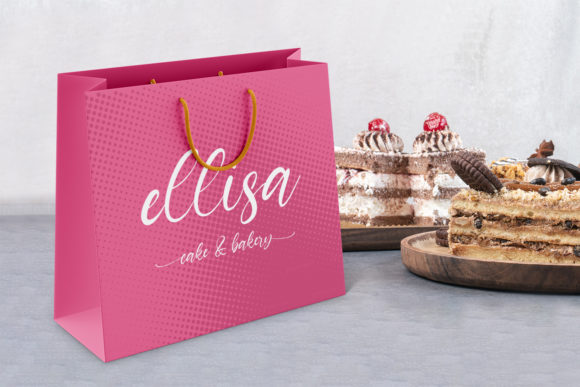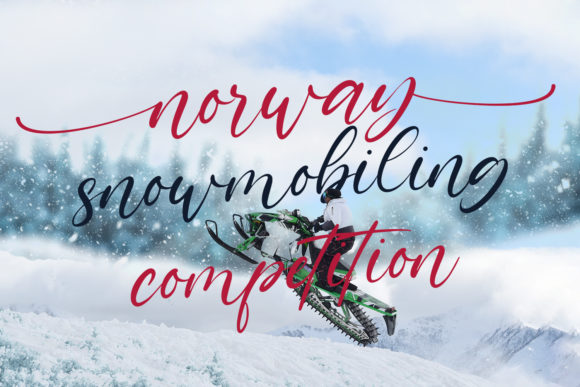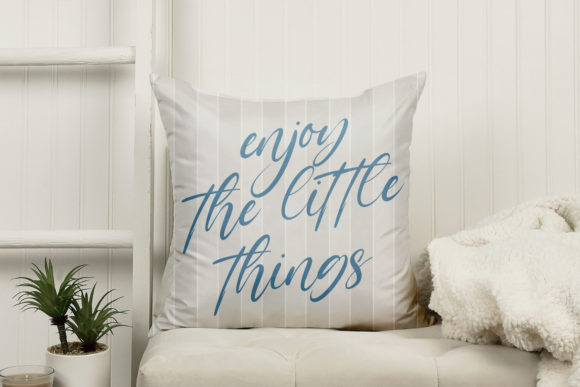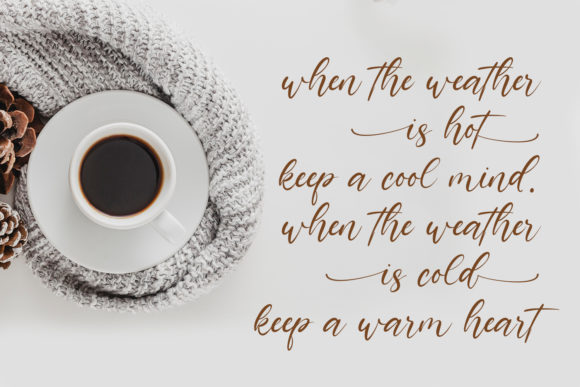
About Winterline Font
Winterline is an incredibly distinct, delicate and timeless handwritten font. It looks stunning on wedding invitations, thank you cards, quotes, greeting cards, logos, business cards and every other design which needs a handwritten touch.
It features a varying baseline, smooth lines, gorgeous glyphs and stunning alternates.